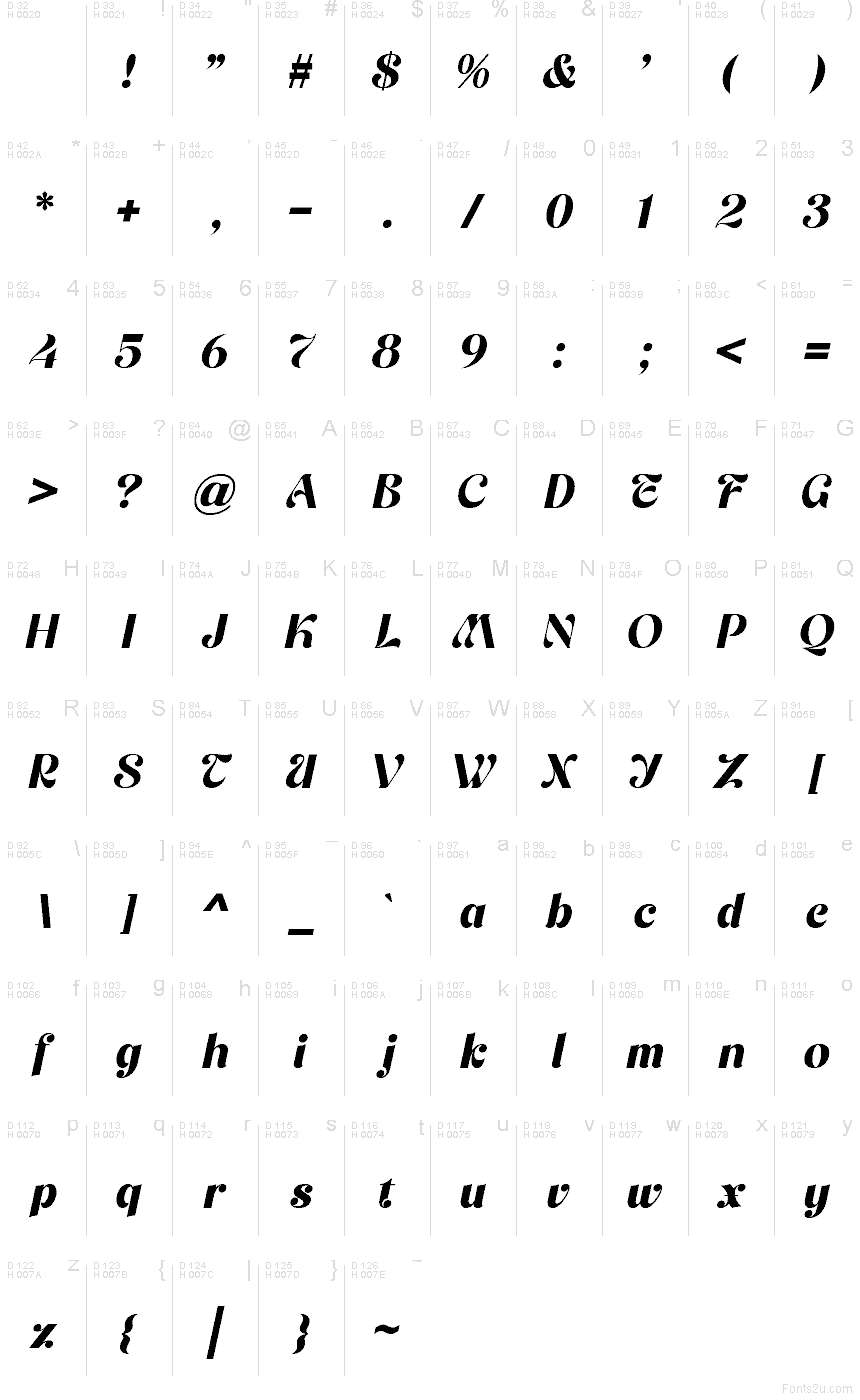
Evantic Italic from Sign Studio is a free retro display font cut with extreme thick-thin contrast, sharp triangular joins, and voluptuous curves that recall flamboyant 1970s fashion lettering. Its pinched forms give the alphabet a theatrical silhouette.
Fashion editorials and beauty packaging can use that sculpted elegance, and concert posters or album artwork gain a similarly dramatic flourish. In either setting, the curling strokes can become part of an illustrated logo or ornamental badge rather than serving as neutral text.